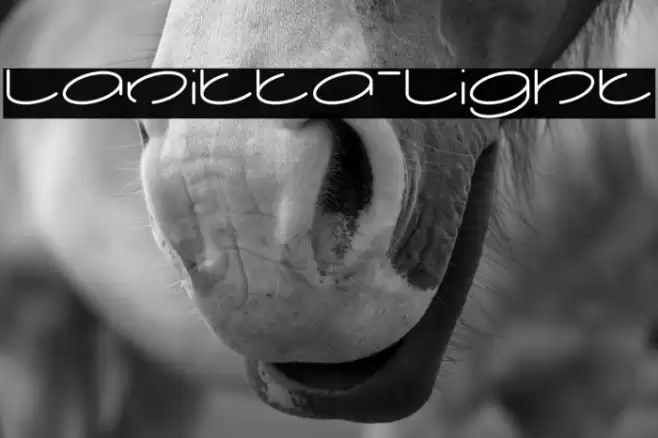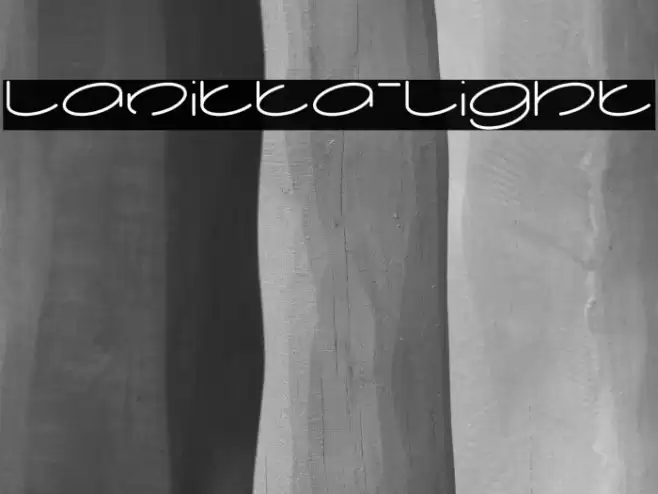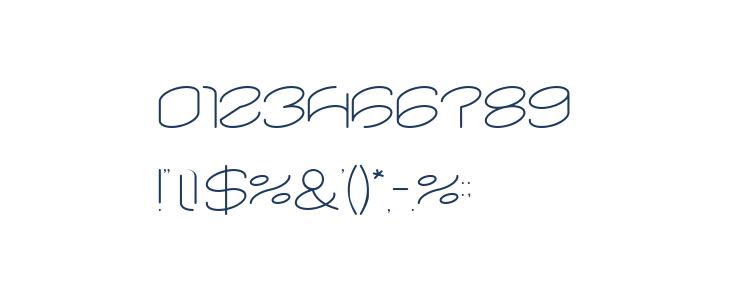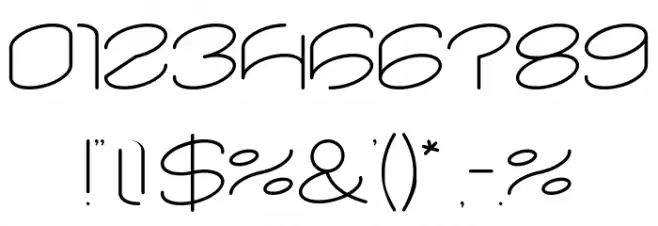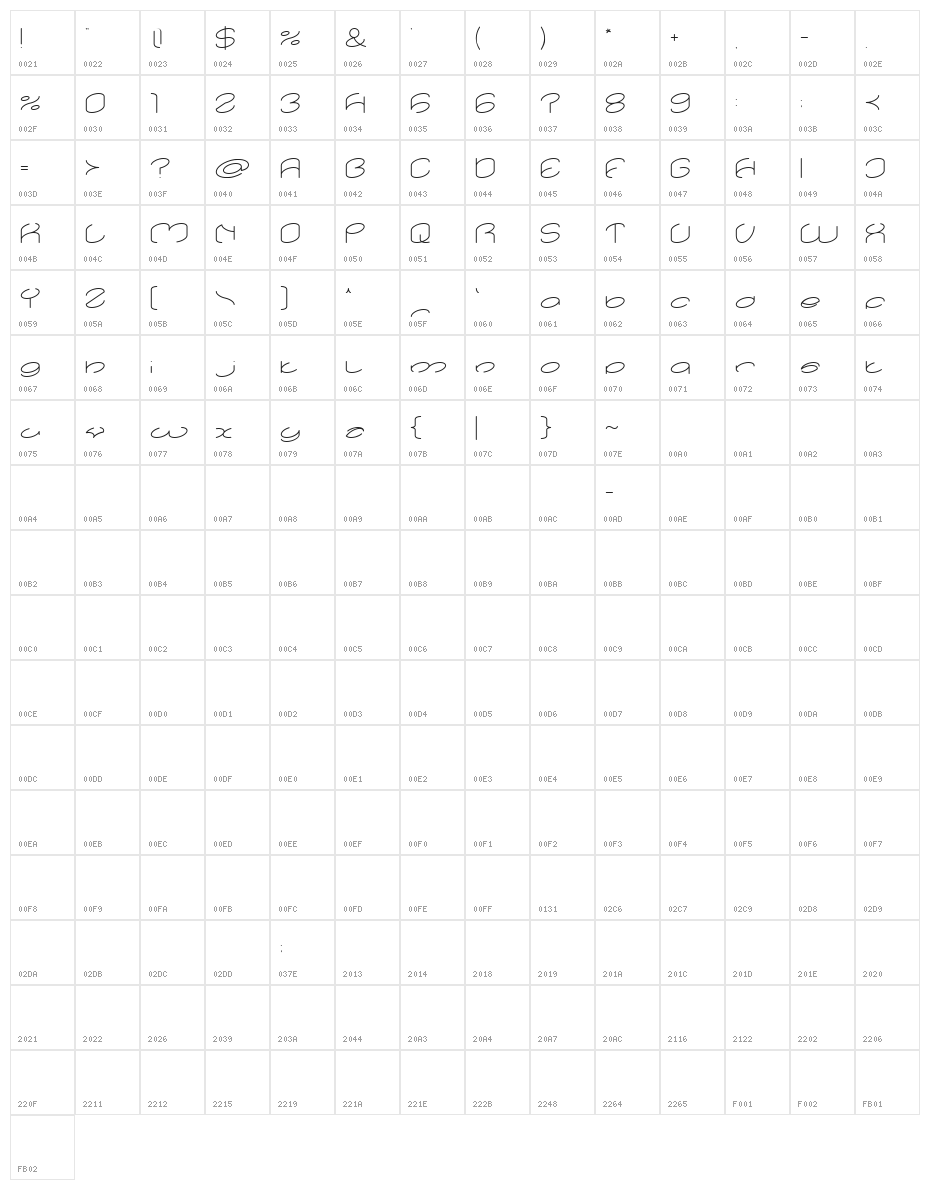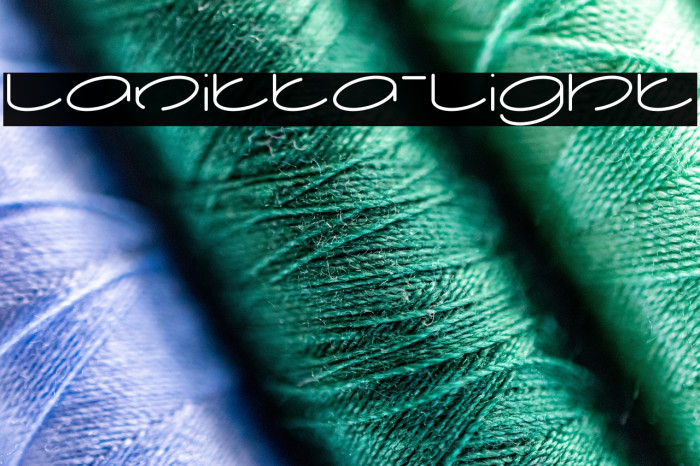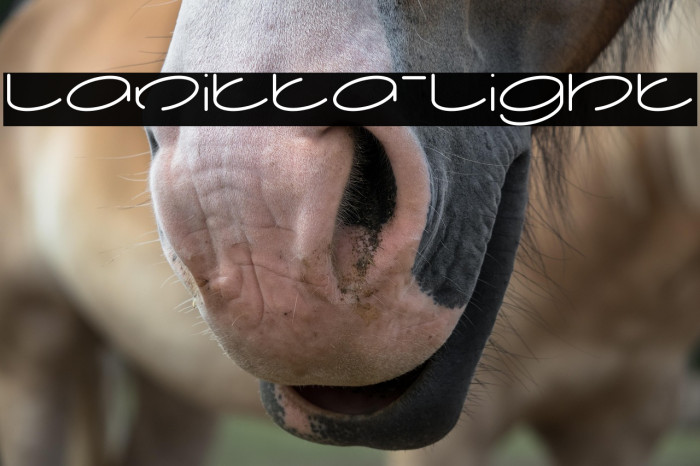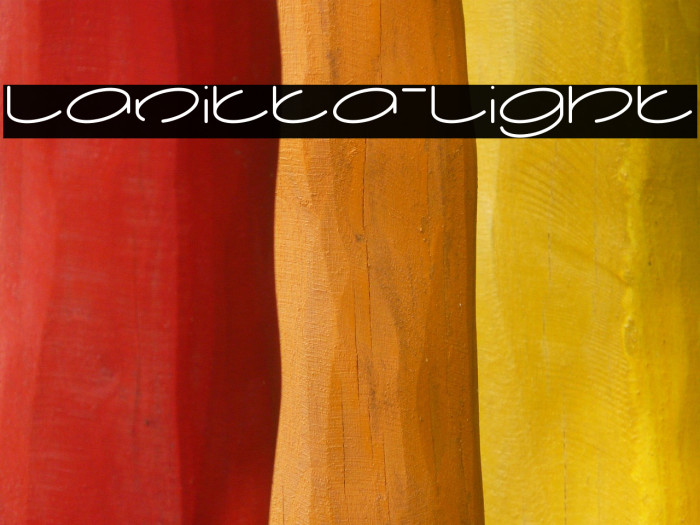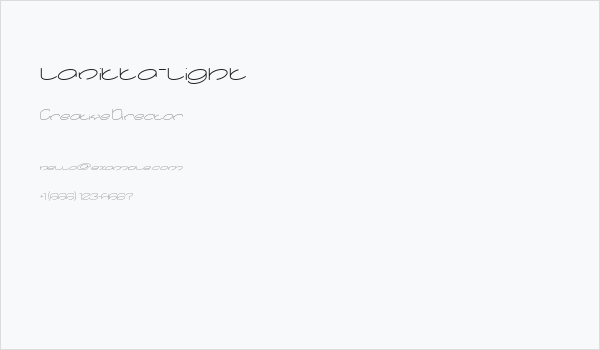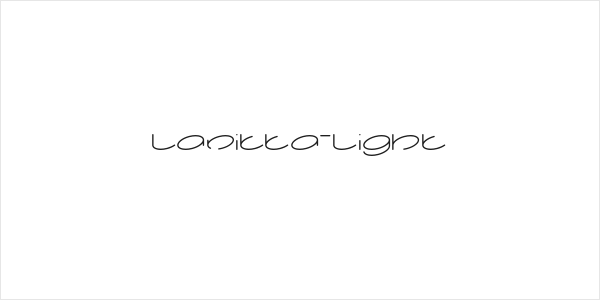
lanitta-light Font
lanitta-light Description
This font features a sleek and modern design with a unique blend of geometric and organic shapes. The characters are elongated with smooth curves and minimalistic lines, creating an airy and futuristic appearance. The uppercase letters maintain a consistent height, while the lowercase letters exhibit a playful yet sophisticated style. Numbers and special characters are crafted with the same attention to detail, ensuring a cohesive look throughout. The font's thin strokes and open forms make it ideal for projects that require a contemporary and elegant touch.
A sleek, modern font with elongated, minimalistic characters and smooth curves from Uncategorized fonts.